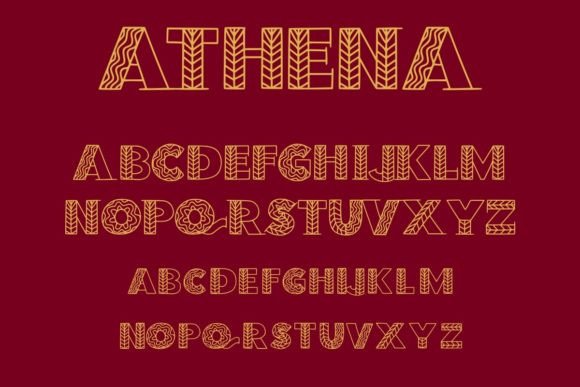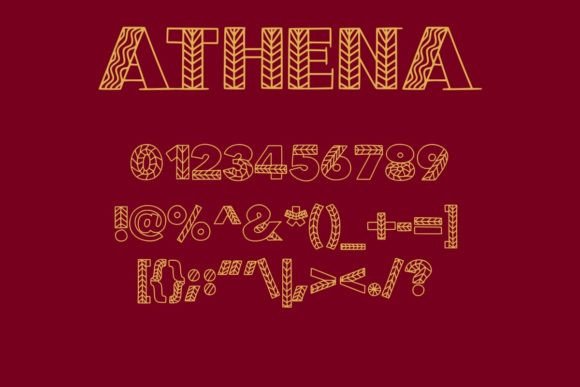
The Magic of Athena Font: Elevate Your Designs with a Stylish Heavy Display Font
I’ll never forget the time I was working on a Christmas card project for a client, and I just couldn’t find the right font to capture that perfect Scandi vibe. The design needed to be festive, yet elegant, and I wanted it to have a hand-lettered feel that would make it stand out. That’s when I stumbled upon the Athena Font, and let me tell you, it was love at first sight! ✨
With its stylish heavy display and patterning, Athena Font allows you to create typographic designs that are not only visually stunning but also evoke a sense of Nordic charm. In this article, I’ll share my experience with this amazing font, its features, and how you can use it to take your designs to the next level.
An Honest Review of Athena Font
- ✨ Unique and stylish design with a hand-lettered feel
- ✅ Perfect for Scandi design, Christmas cards, and Nordic-inspired projects
- ✅ Great impact and versatility, making it suitable for various design applications
While Athena Font is an excellent choice for many design projects, there are a few things to keep in mind: 🤔
- ⚠️ Some users may find the font’s heaviness overwhelming for certain design applications
- ⚠️ Limited use of uppercase letters may require creative workarounds for certain designs
The Backstory of Athena Font
Athena Font was designed with the intention of capturing the essence of Nordic design, with its clean lines, bold shapes, and a touch of playfulness. The designer aimed to create a font that would not only be visually stunning but also evoke a sense of warmth and coziness, perfect for winter and Christmas-themed designs. The result is a font that exudes a sense of Scandinavian charm and sophistication.
Q: What makes Athena Font suitable for Scandi design?
A: Athena Font’s clean lines, bold shapes, and subtle patterning evoke a sense of Nordic charm, making it an excellent choice for Scandi-inspired designs.
Q: Can I combine Athena Font with other fonts?
A: Yes, Athena Font can be paired with other fonts to create a unique visual identity, but make sure to choose fonts that complement its style and personality.